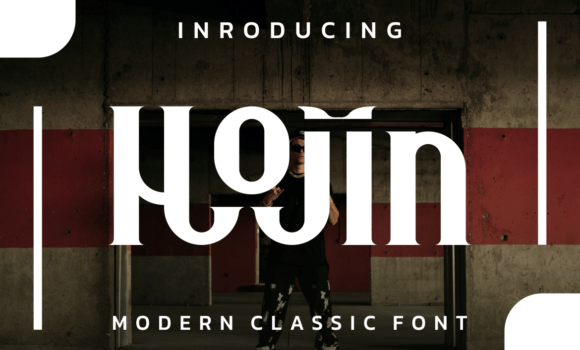
hojin
Hojin Font – Free Download Introduction to Hojin Font Hojin is a modern and interesting display font. 📸 Preview Gallery 2 images 📌 Product Name Hojin Font 👤 Author Marvadesign 📂 Category Explore ⬇️ Download Hojin Font FREE Free Download